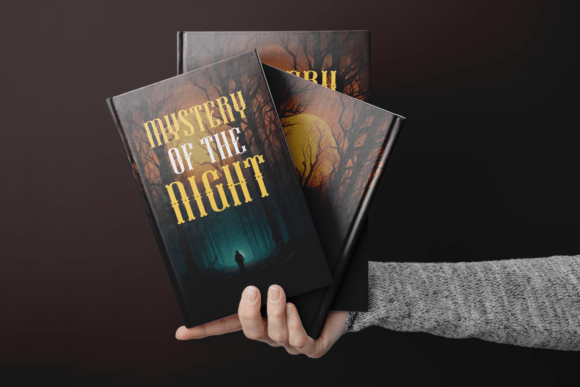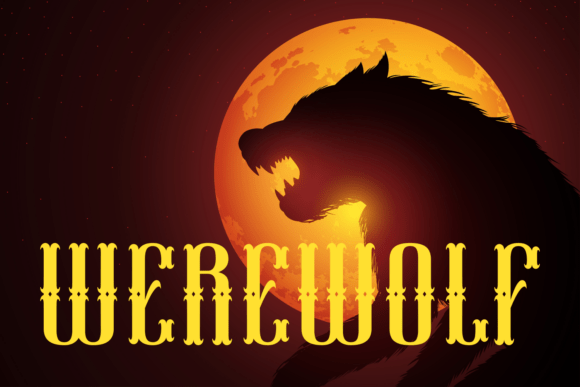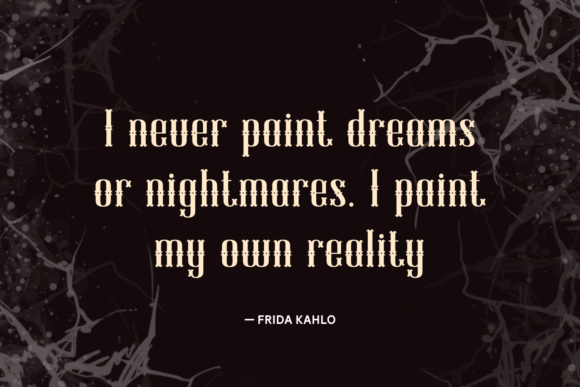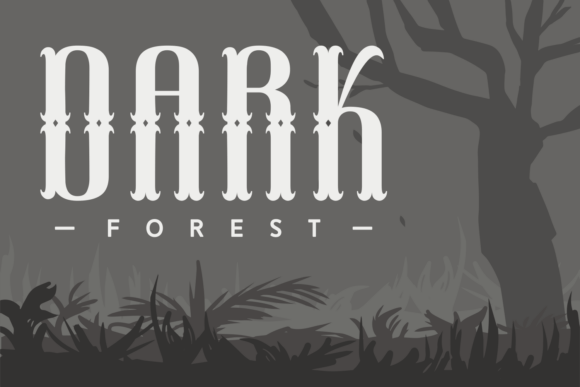
Unleash the Mystery with Enveloped Darkness Font
Step into the shadows with “Enveloped Darkness,” a vintage blackletter font that embodies the essence of intrigue and mystery. This stunning typeface is a masterful blend of classic typography and modern style, making it a versatile tool for designers and crafters looking to add a touch of drama and sophistication to their projects.
A Refined Craftsmanship
“Enveloped Darkness” boasts refined craftsmanship that pays homage to the rich history of blackletter typography. Its artful and clean lines evoke a sense of nostalgia, while its unique twist sets it apart from traditional fonts. This font is a perfect example of how classic design principles can be reimagined to meet the needs of modern design.
The versatility of “Enveloped Darkness” is one of its most striking features. This font can be used in a wide range of design applications, from website design and magazine layouts to brand identities, apparel designs, and product packaging. Whether you’re looking to create a bold statement or a subtle hint of mystery, “Enveloped Darkness” is the perfect choice.
Elevate Your Website Design
In today’s digital landscape, a well-designed website is crucial for any business or brand. “Enveloped Darkness” can add a touch of sophistication and elegance to your website, making it stand out from the crowd. Use it for headings, titles, or even body text to create a cohesive and visually appealing design.
Magazine and Editorial Design
“Enveloped Darkness” is also an excellent choice for magazine and editorial design. Its vintage flair and mysterious vibe make it perfect for igniting the pages of magazines, adding a touch of drama to articles, and creating eye-catching headlines.
Brand Identity and Packaging
For brands looking to create a unique and memorable identity, “Enveloped Darkness” is an excellent choice. Use it for logos, packaging, and marketing materials to create a cohesive and recognizable brand image. This font is particularly effective for brands that want to evoke a sense of luxury, mystery, or exclusivity.
Apparel and Merchandise Design
“Enveloped Darkness” is also a great choice for apparel and merchandise design. Its bold and dramatic style makes it perfect for T-shirt designs, hoodies, and other wearable products. Use it to create striking graphics, logos, or quotes that will make your designs stand out.
Greeting Cards and Invitations
For crafters and designers looking to create unique and personalized greeting cards and invitations, “Enveloped Darkness” is an excellent choice. Its artful and clean lines make it perfect for creating beautiful and elegant designs that will make your cards and invitations special.
A Trendsetter in the Font World
“Enveloped Darkness” is a trendsetter in the font world, offering a perfect blend of classic nuances and modern style. Its unique design and versatility make it an excellent choice for designers and crafters looking to stay ahead of the curve.
Book Covers and Quote Graphics
Imagine the depth and drama that “Enveloped Darkness” could bring to a book cover or quote graphic. Its bold and mysterious style makes it perfect for creating eye-catching designs that will make your book or graphic stand out.
In conclusion, “Enveloped Darkness” is a versatile and stunning font that offers endless design possibilities. Its refined craftsmanship, unique twist, and artful lines make it perfect for a wide range of design applications. Whether you’re a designer, crafter, or simply someone looking to add a touch of mystery to your projects, “Enveloped Darkness” is an excellent choice.